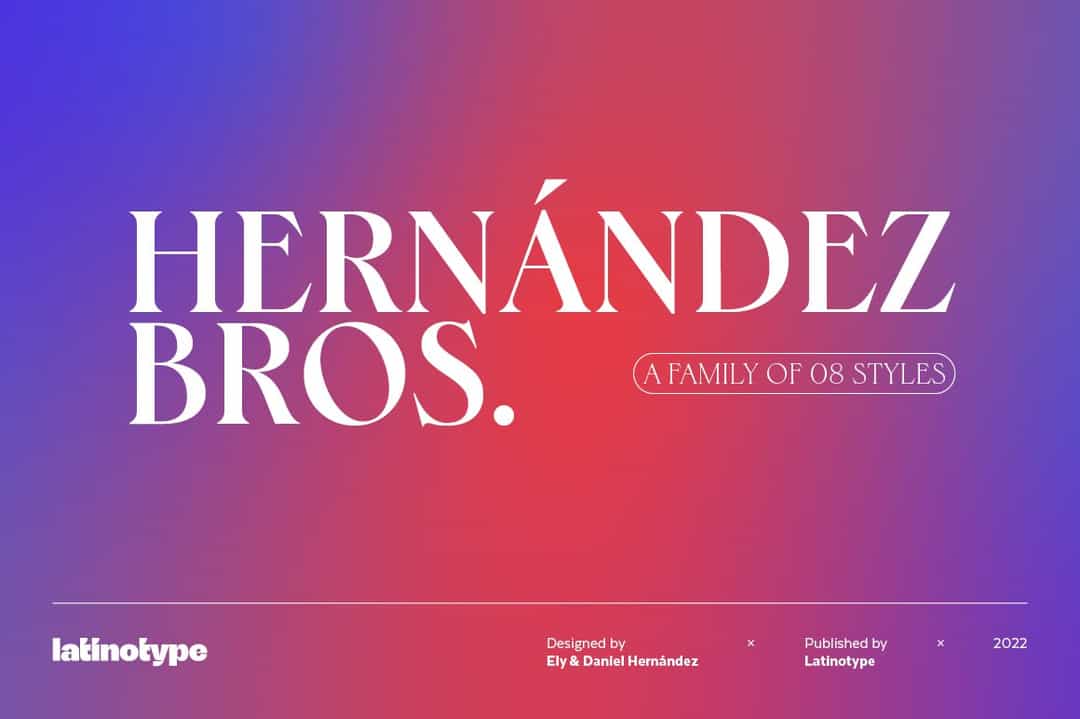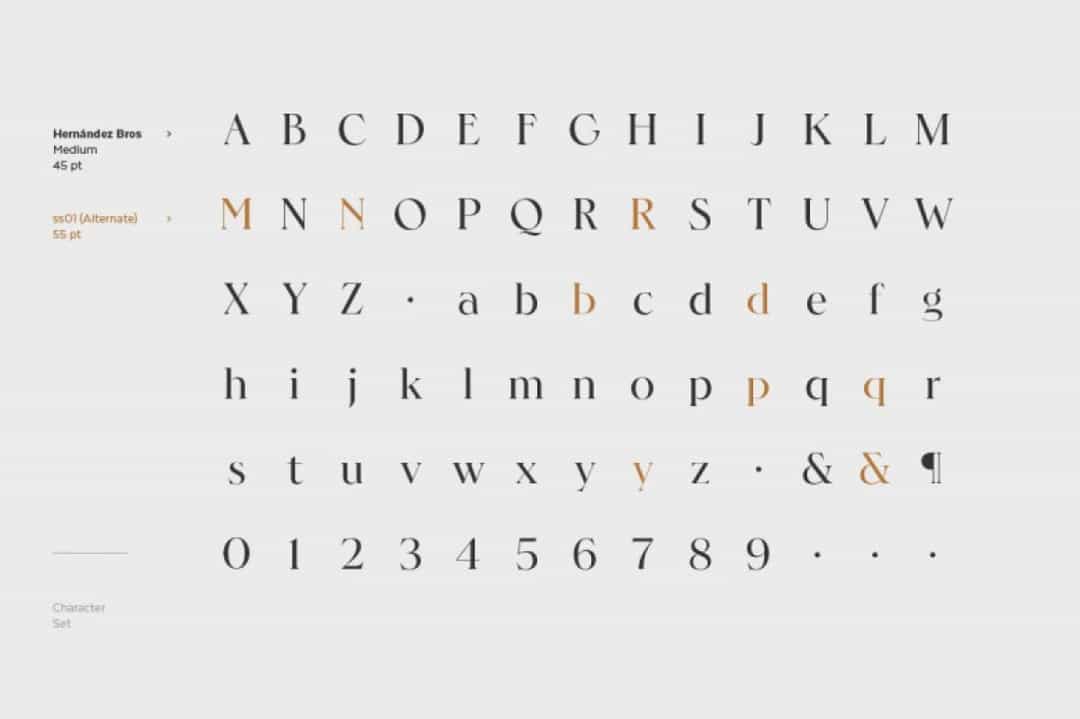
Hernandez Bros is a serif font created by Daniel and Eli Hernandez during 2021 during the Covid epidemic, inspired by their spirit of collaboration in order to achieve better results during such a challenging period. Daniel and Eli started an exchange of illustrations based on Bulfinch as seen in 1912’s ATF catalog.